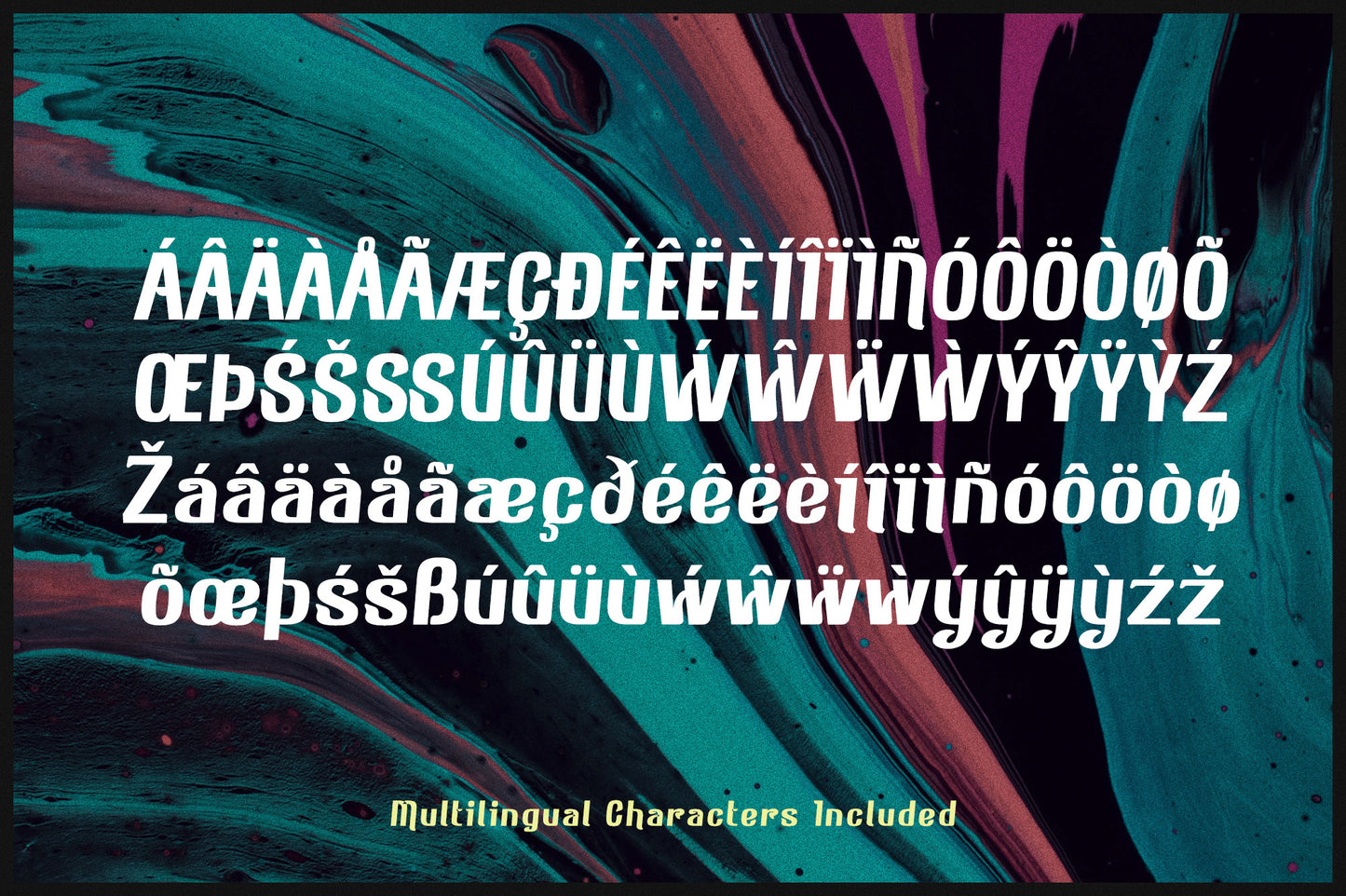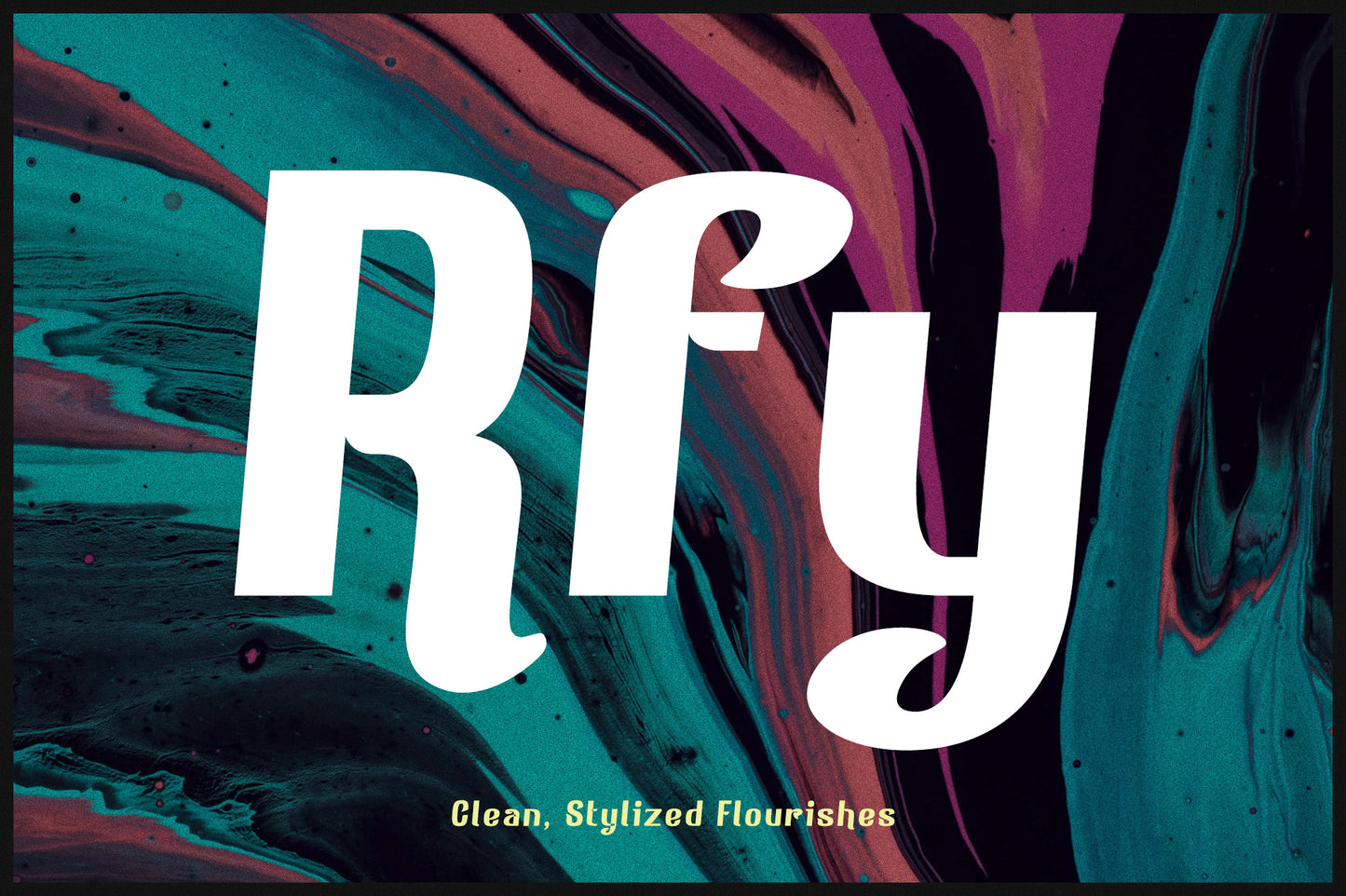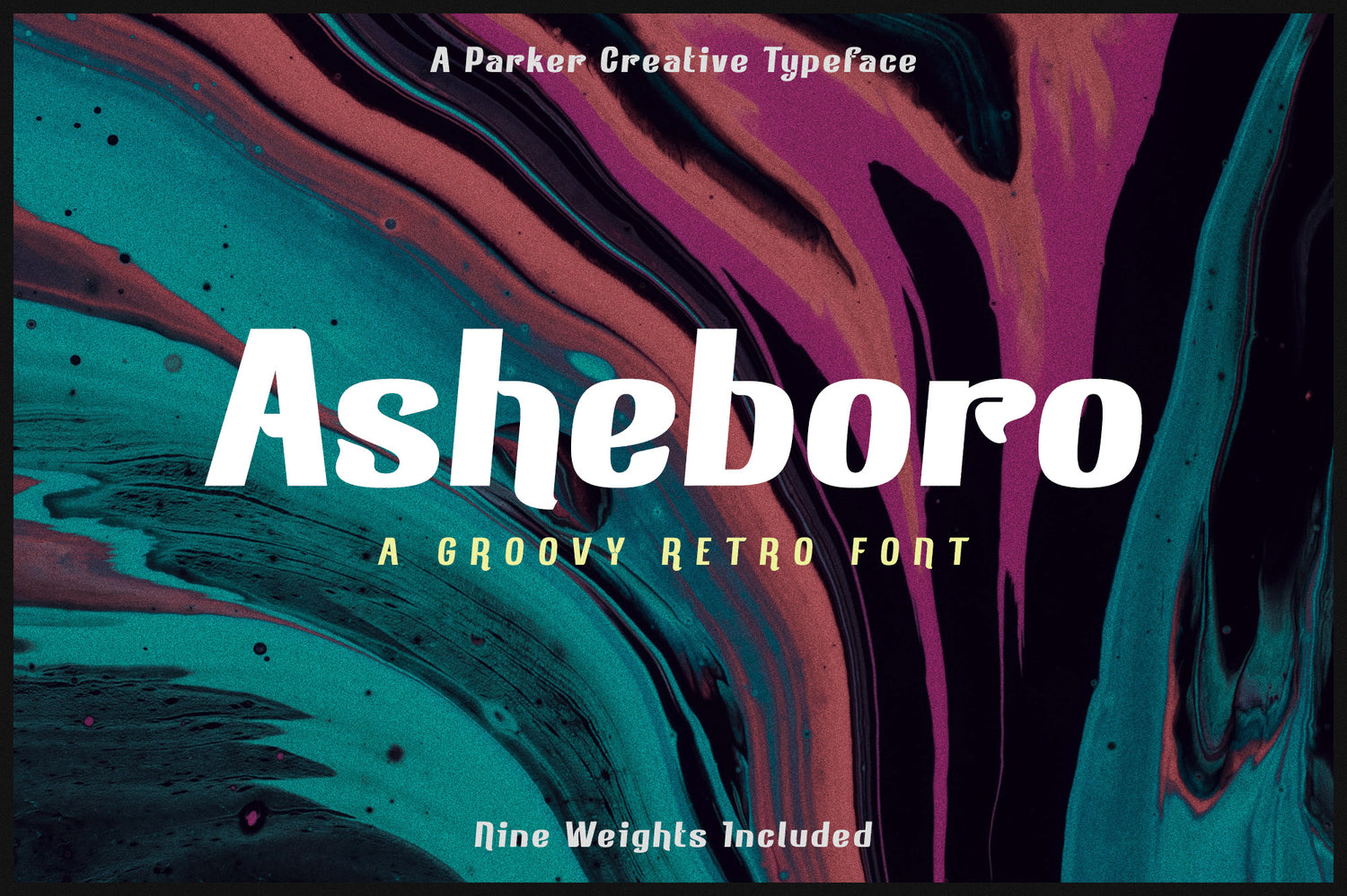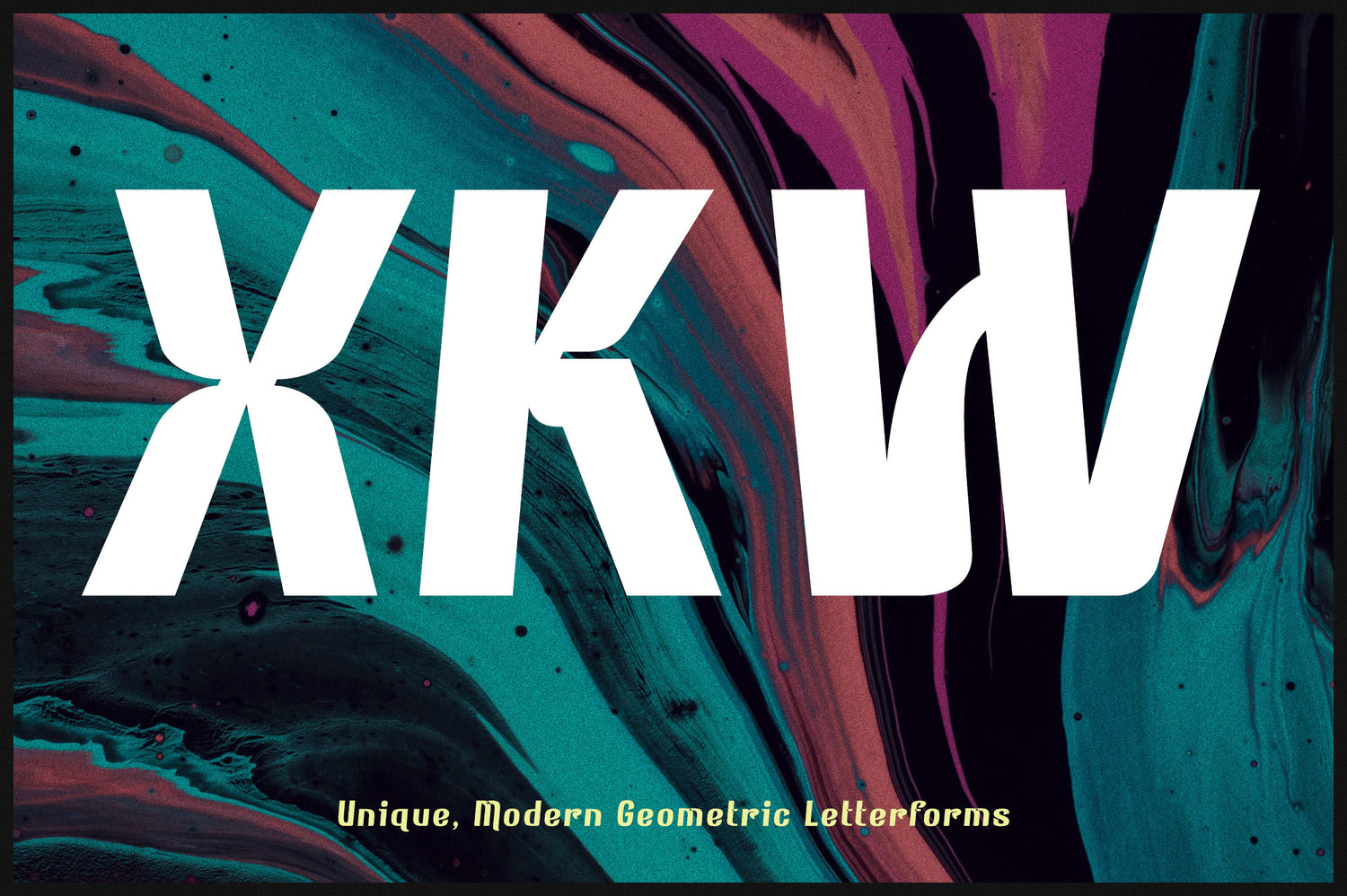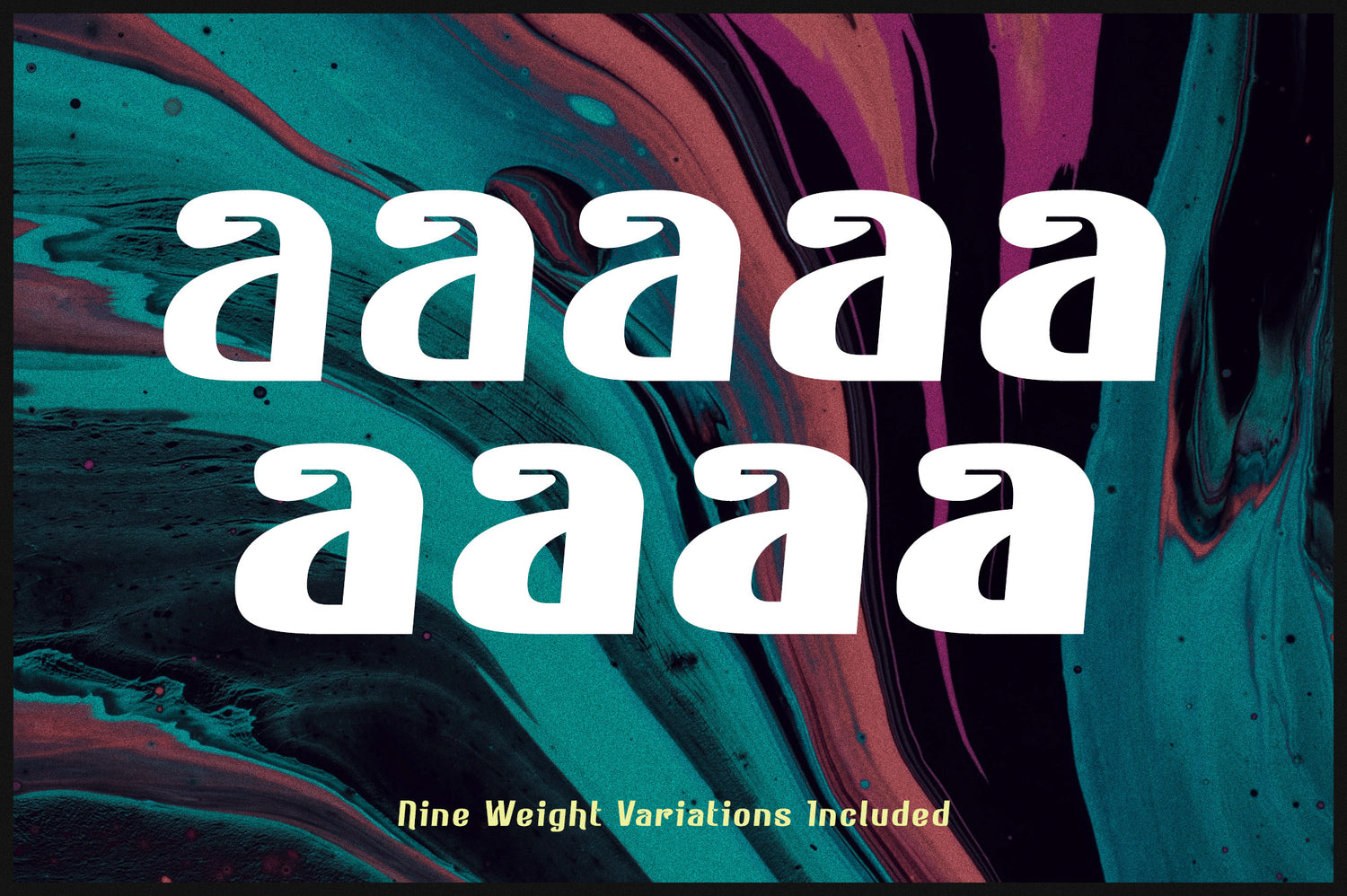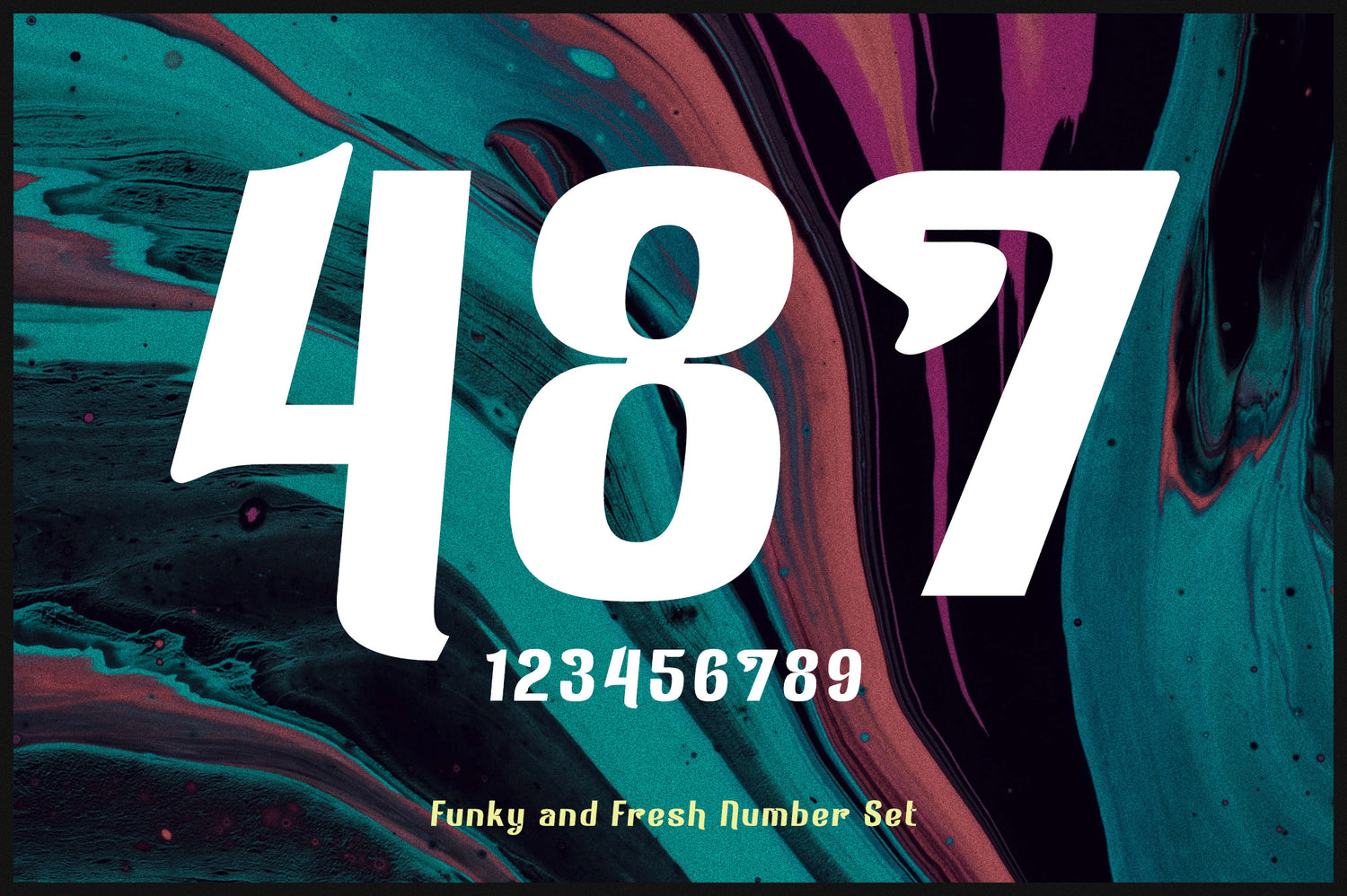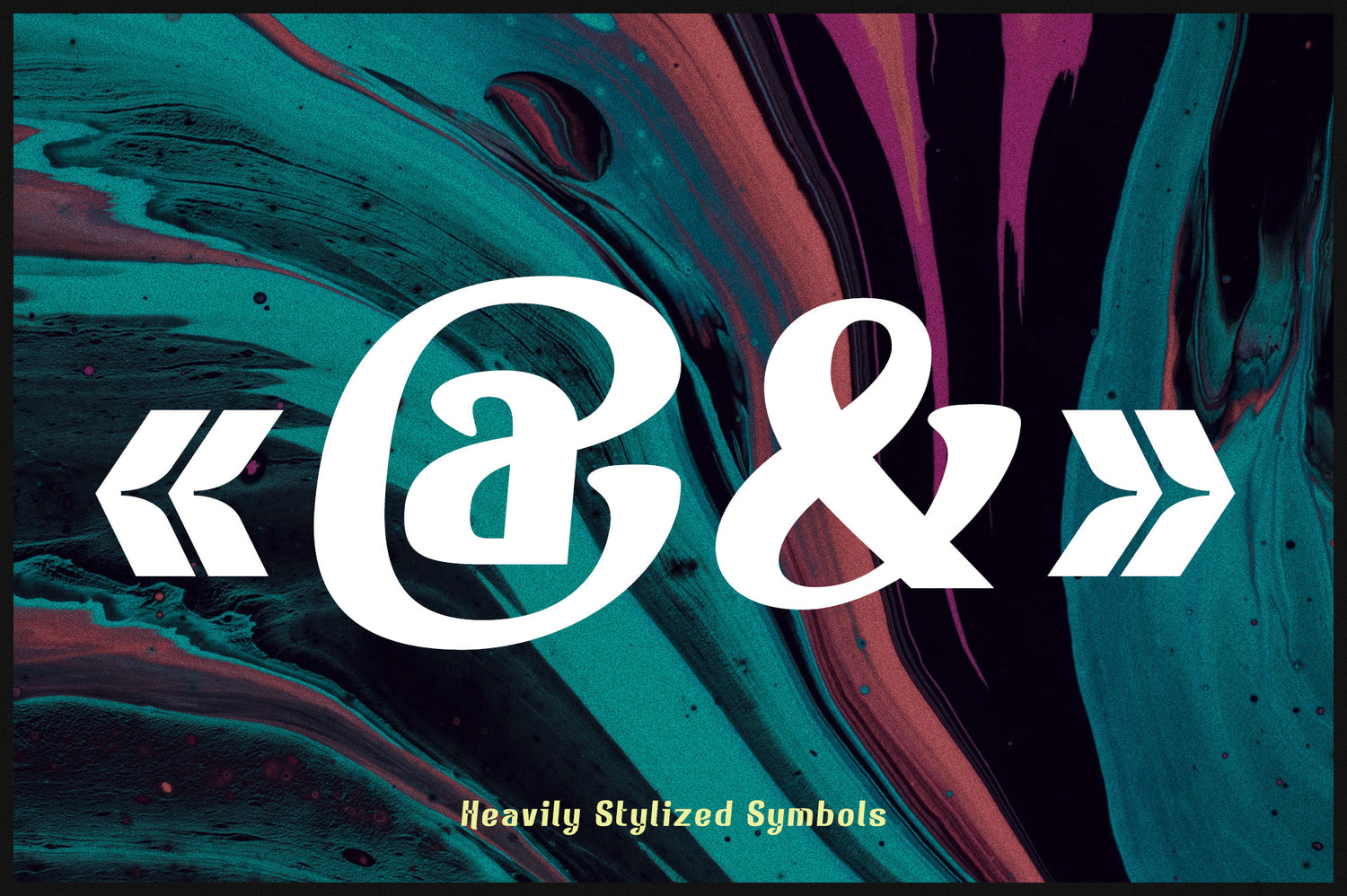
Asheboro | Groovy Retro Modern Font
Introducing Asheboro, a groovy retro font with modern style! Asheboro pairs the elements of groovy psychedelic lettering of the 1960's and 70's with the clean lines found in a modern geometric sans-serif. This combination creates a completely new aesthetic without losing the familiarity of the iconic typography of the past.
With its iconic retro look, Asheboro is a great typeface selection for special branding projects, themed events, websites, even comic books and graphic novels.
The Asheboro font family includes nine font weight variations for the ultimate font styling versatility. Each font weight is meticulously balanced and well-kerned for the optimal look. In addition, Asheboro includes a beautifully crafted number set, an expanded symbols set, and a large library of multilingual characters.